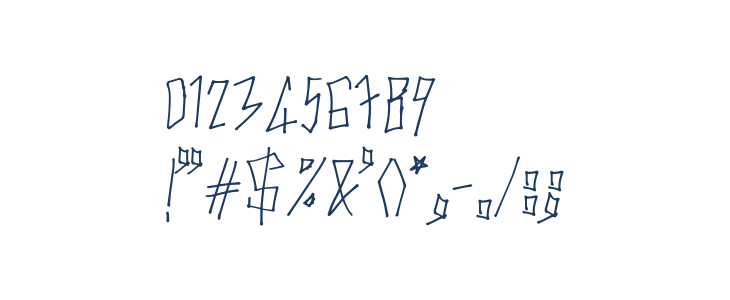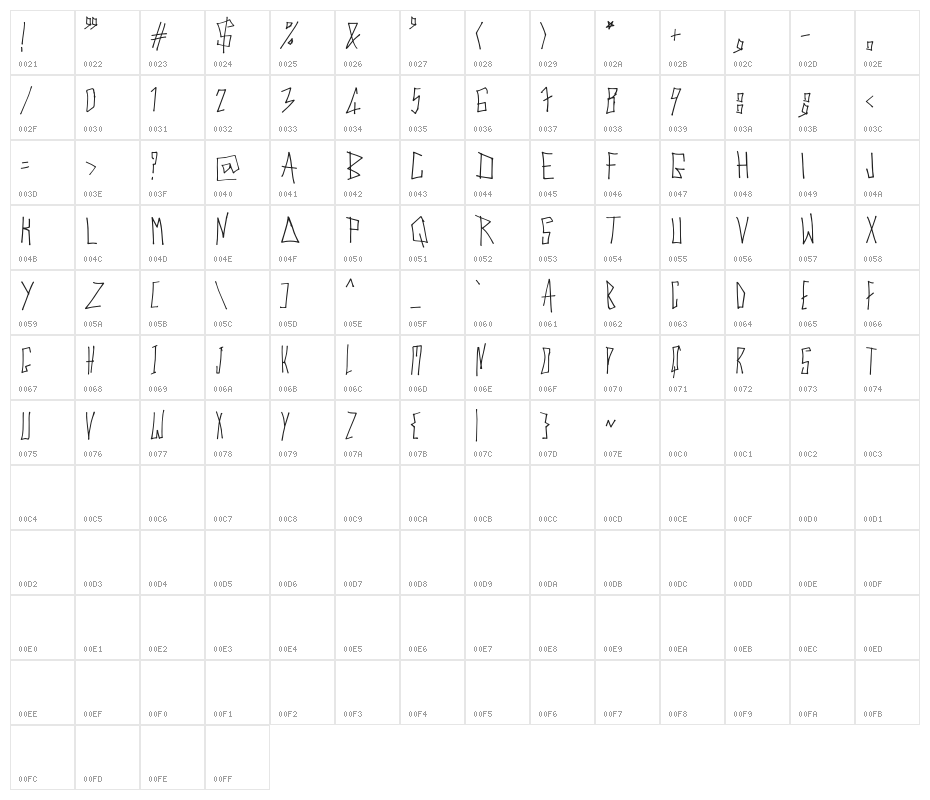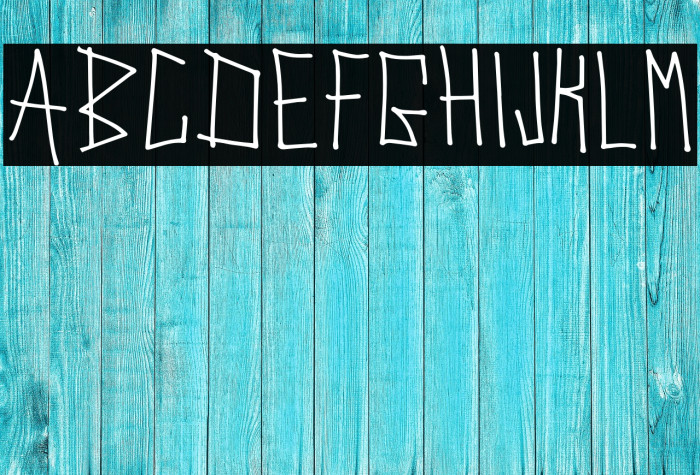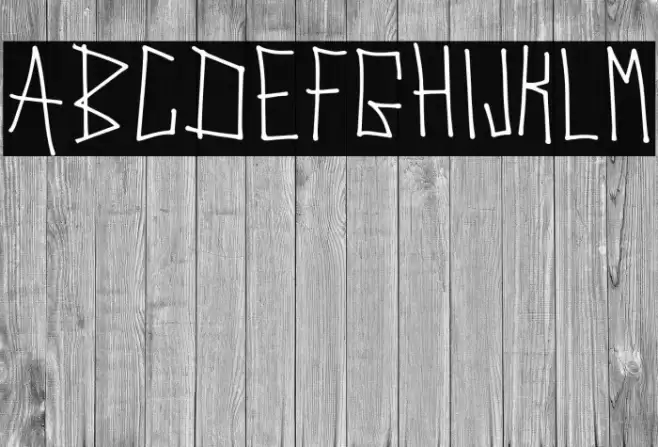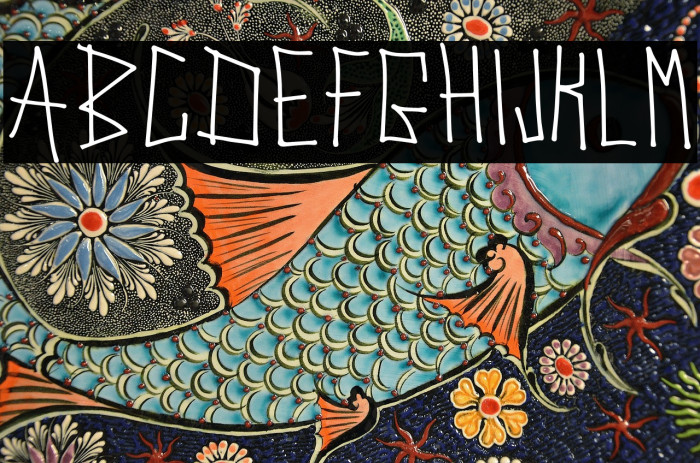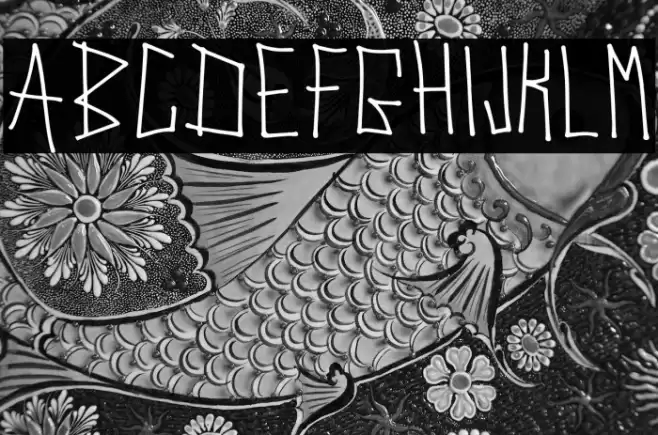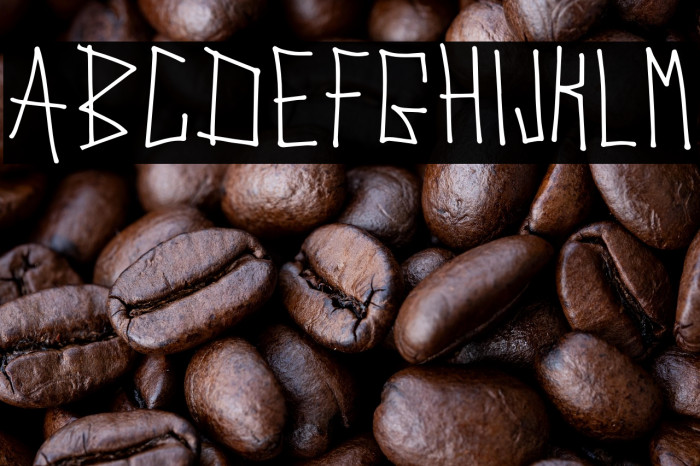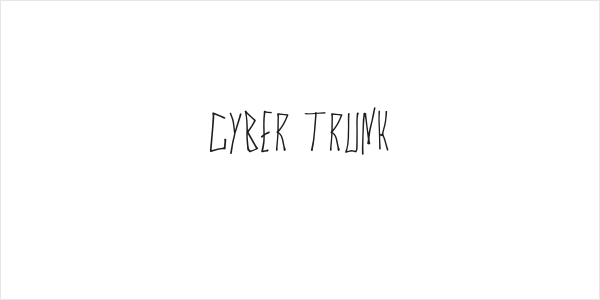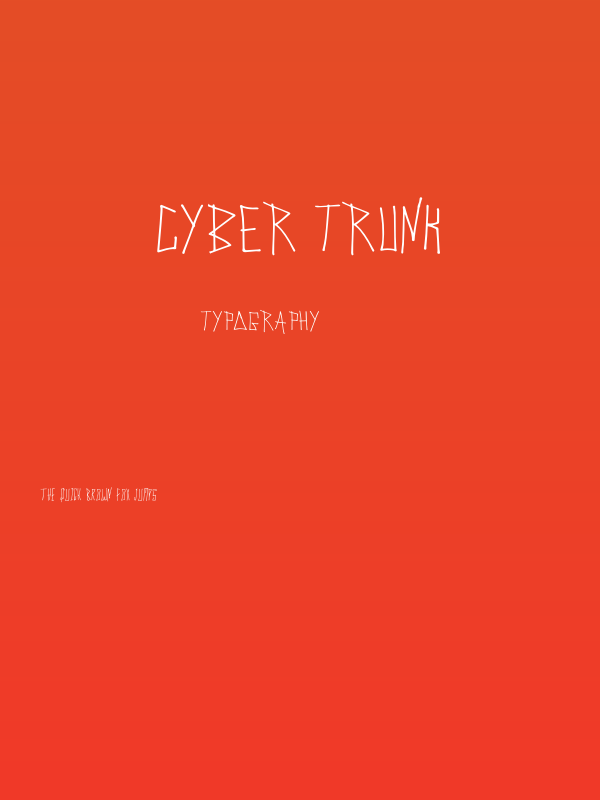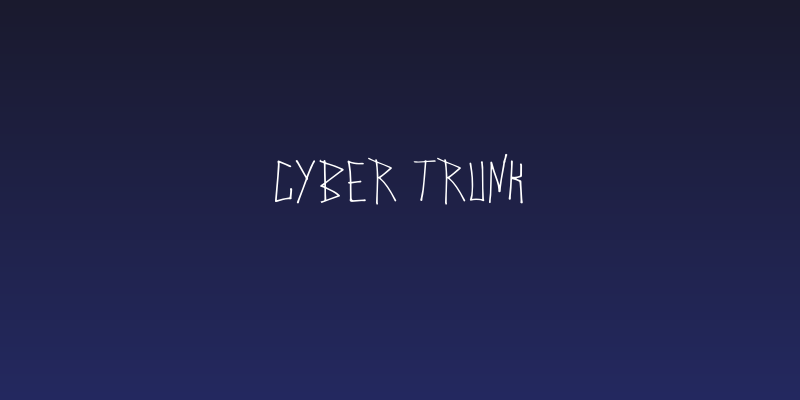
Cyber Trunk Font
Cyber Trunk Description
This font features a futuristic and angular design, characterized by sharp, geometric lines and a distinct, edgy appearance. The uppercase and lowercase letters maintain a consistent style, with a slight slant that adds a dynamic feel. The numerals and special characters follow the same angular theme, ensuring uniformity across the character set. The font's unique style makes it stand out, ideal for projects that require a modern and tech-inspired aesthetic.